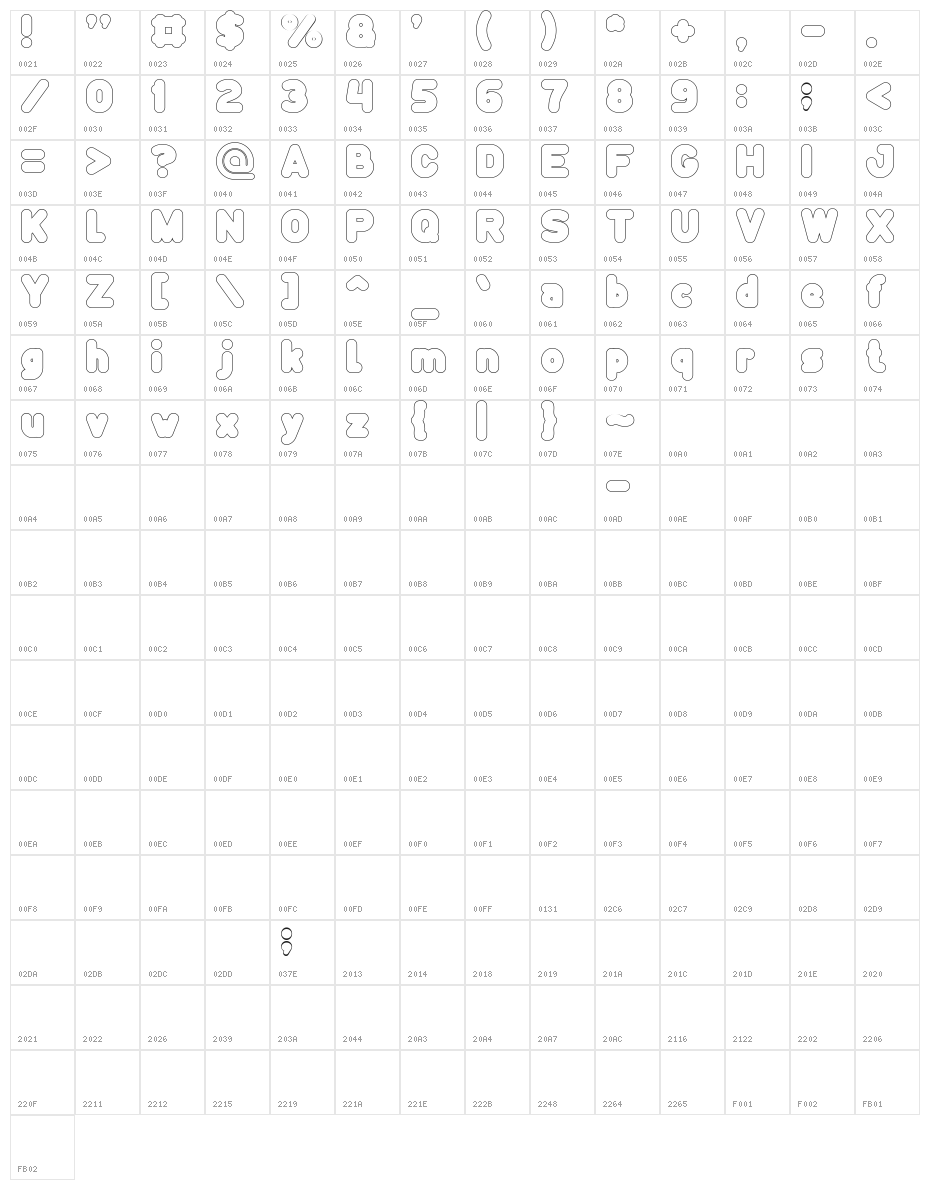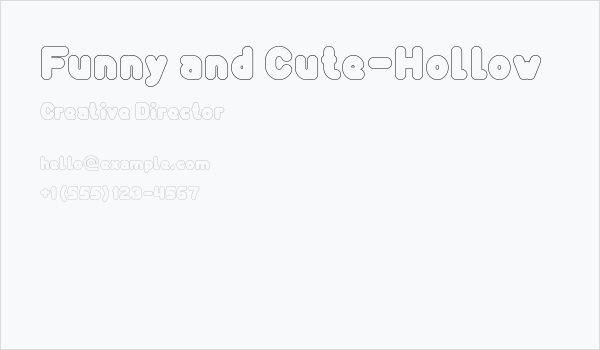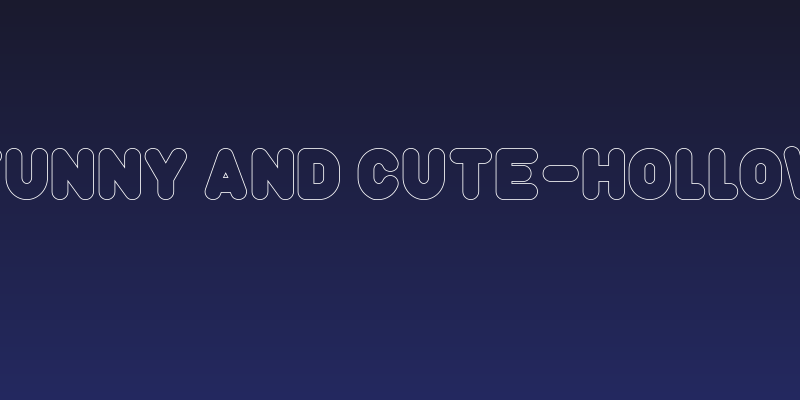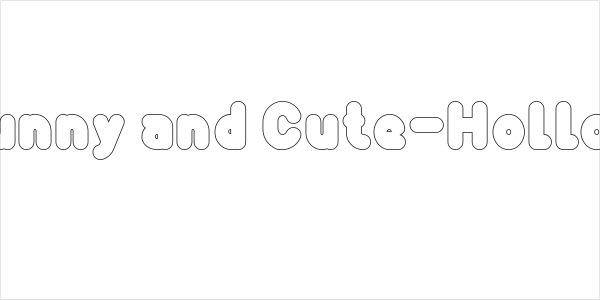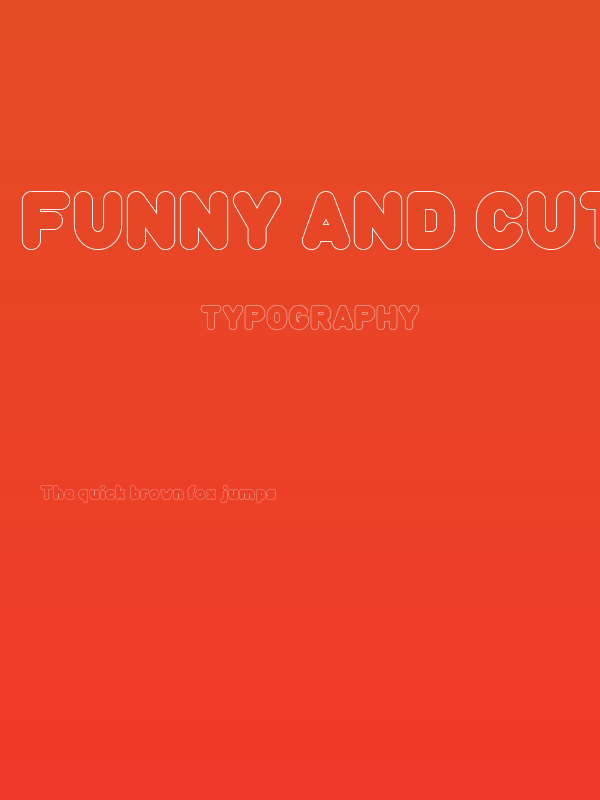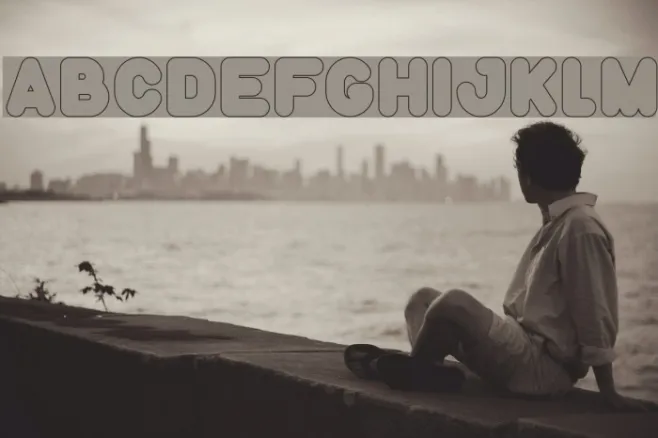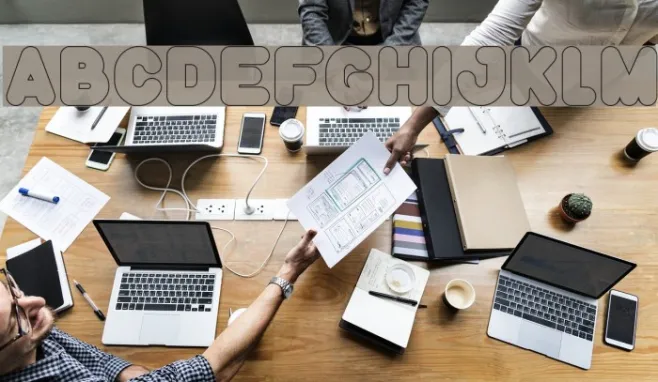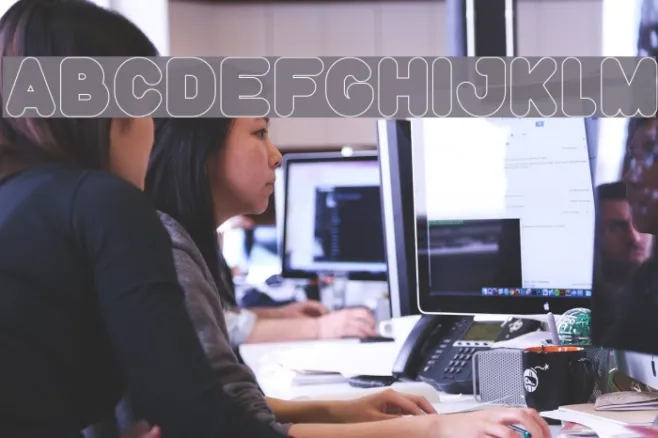
Funny and Cute-Hollow Font
Funny and Cute-Hollow Description
This playful and whimsical font features hollow, rounded characters with a bubbly appearance, making it ideal for designs that require a fun and lighthearted touch. The uppercase and lowercase letters maintain a consistent style, with smooth curves and a uniform thickness that enhances readability. The numbers and special characters follow the same design principles, ensuring a cohesive look across all text elements. Its unique hollow design adds a layer of creativity, making it stand out in any project.
FUNNY-AND-CUTE-HOLLOW UPPERCASE
FUNNY-AND-CUTE-HOLLOW LOWERCASE
FUNNY-AND-CUTE-HOLLOW OTHER CHARS
| Proposed Projects | Perfect for children's books, playful branding, party invitations, and creative posters. |